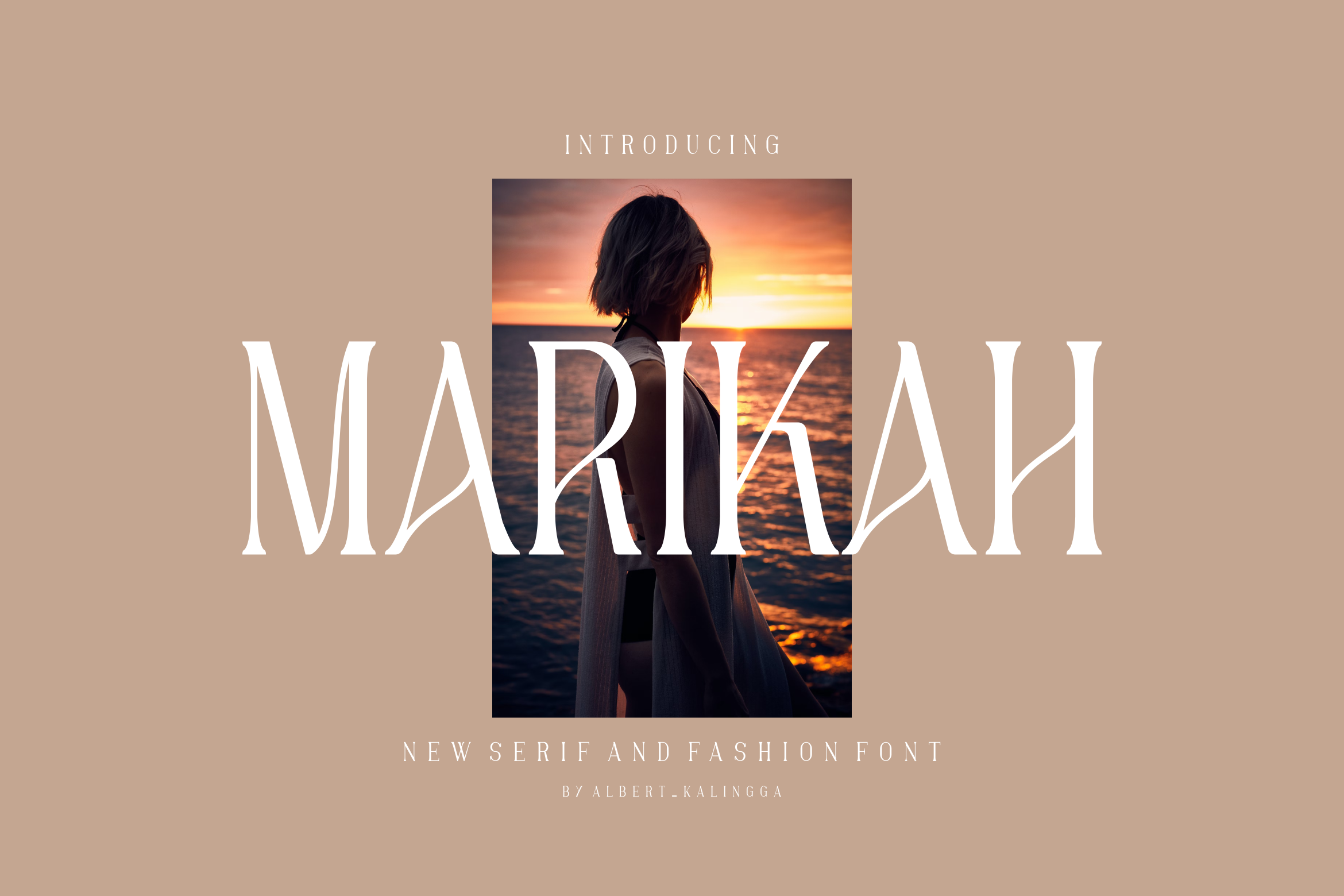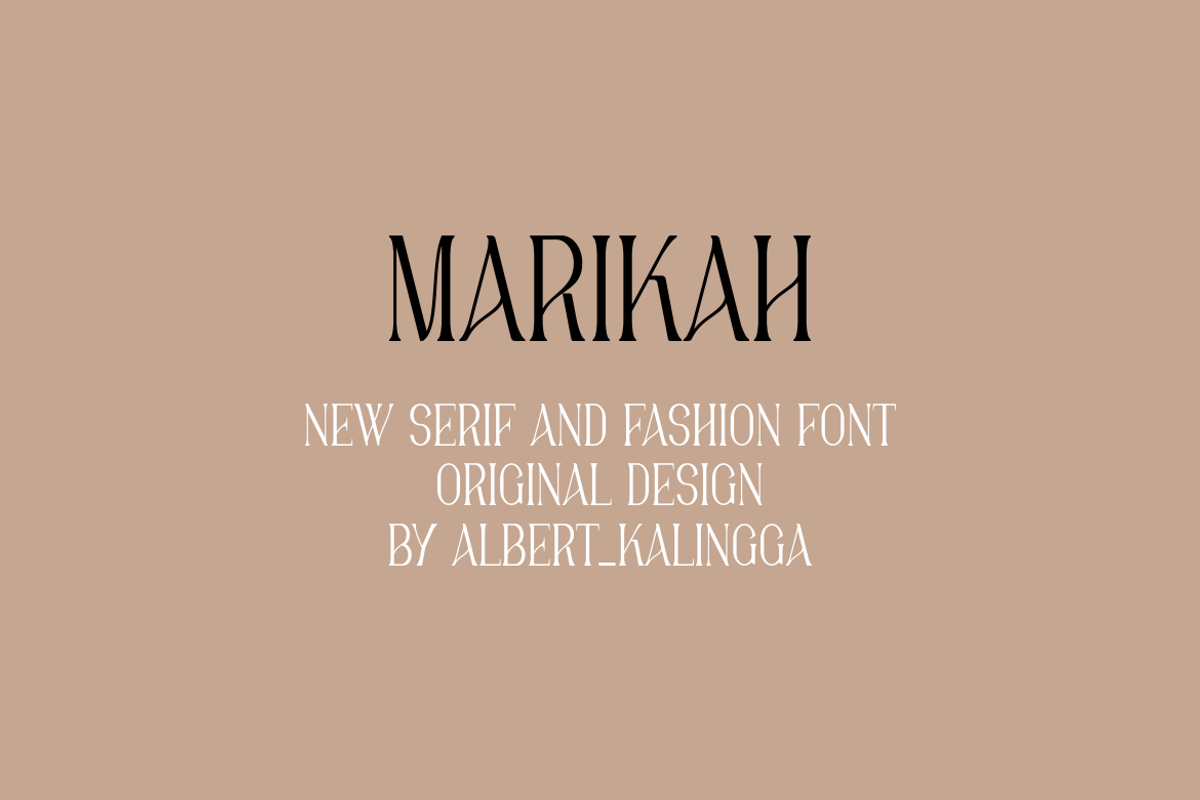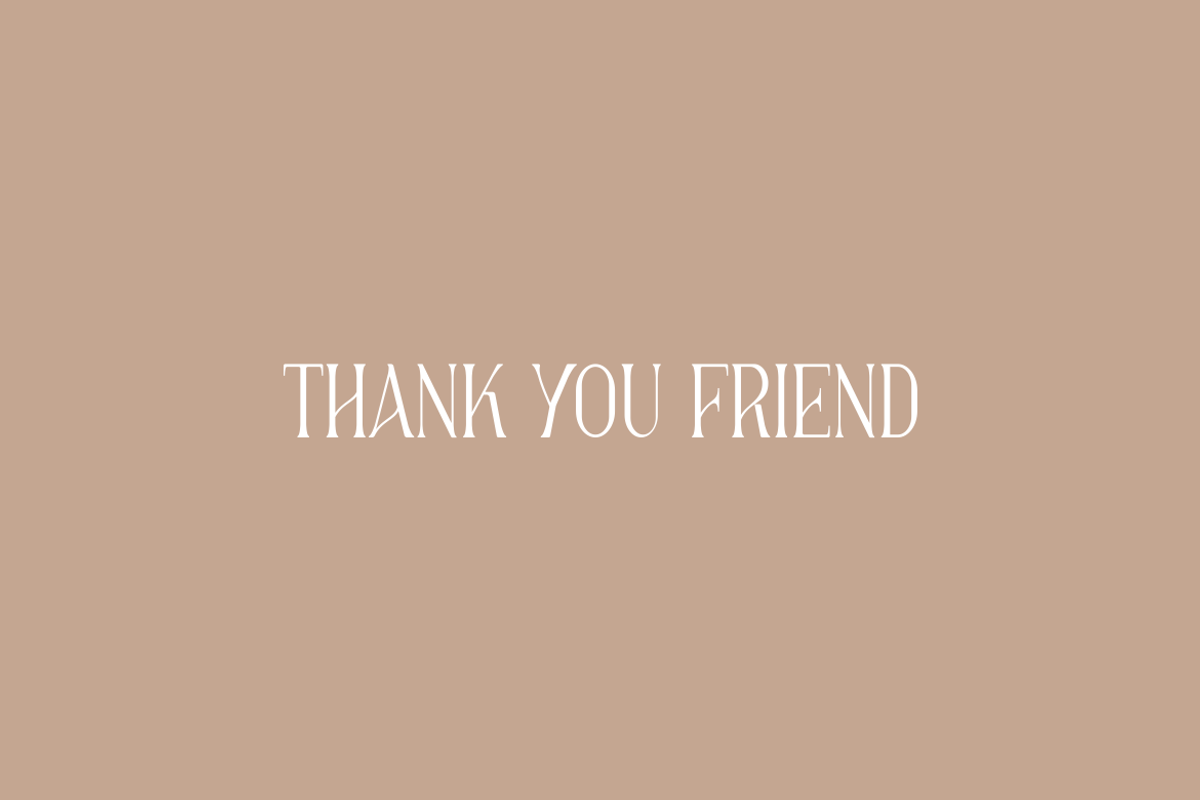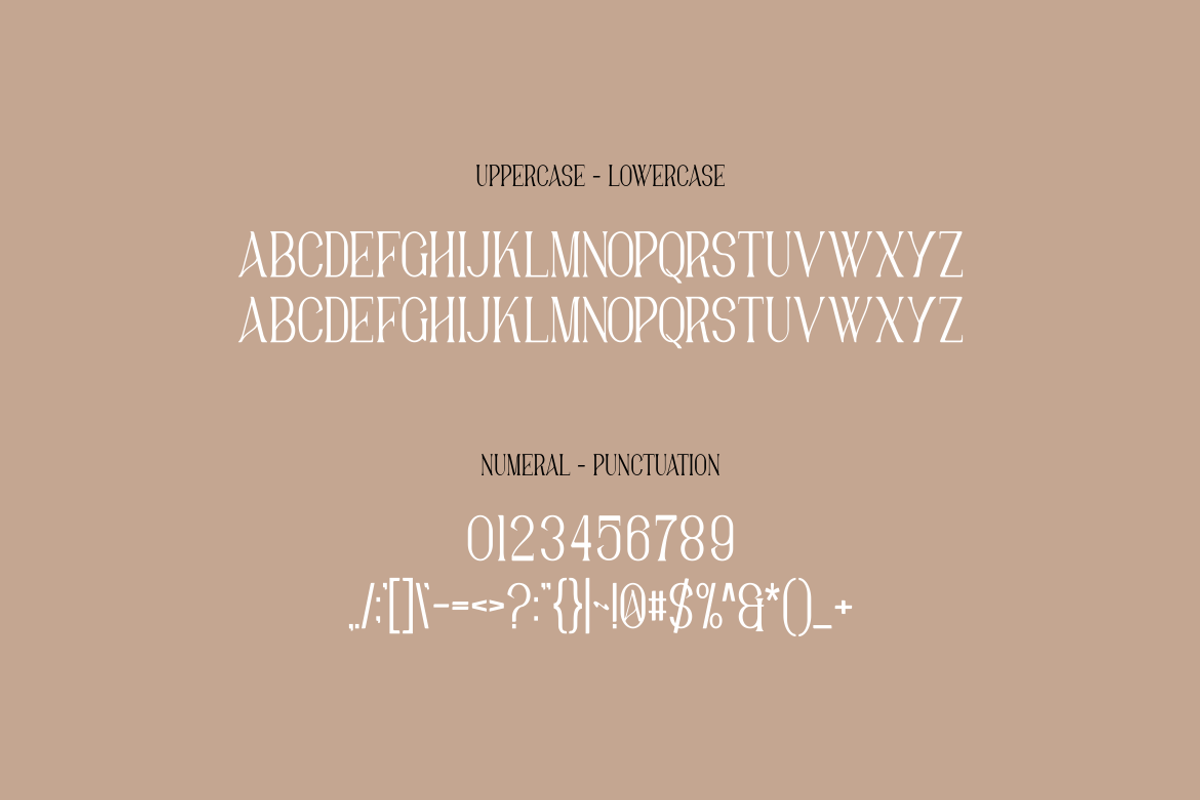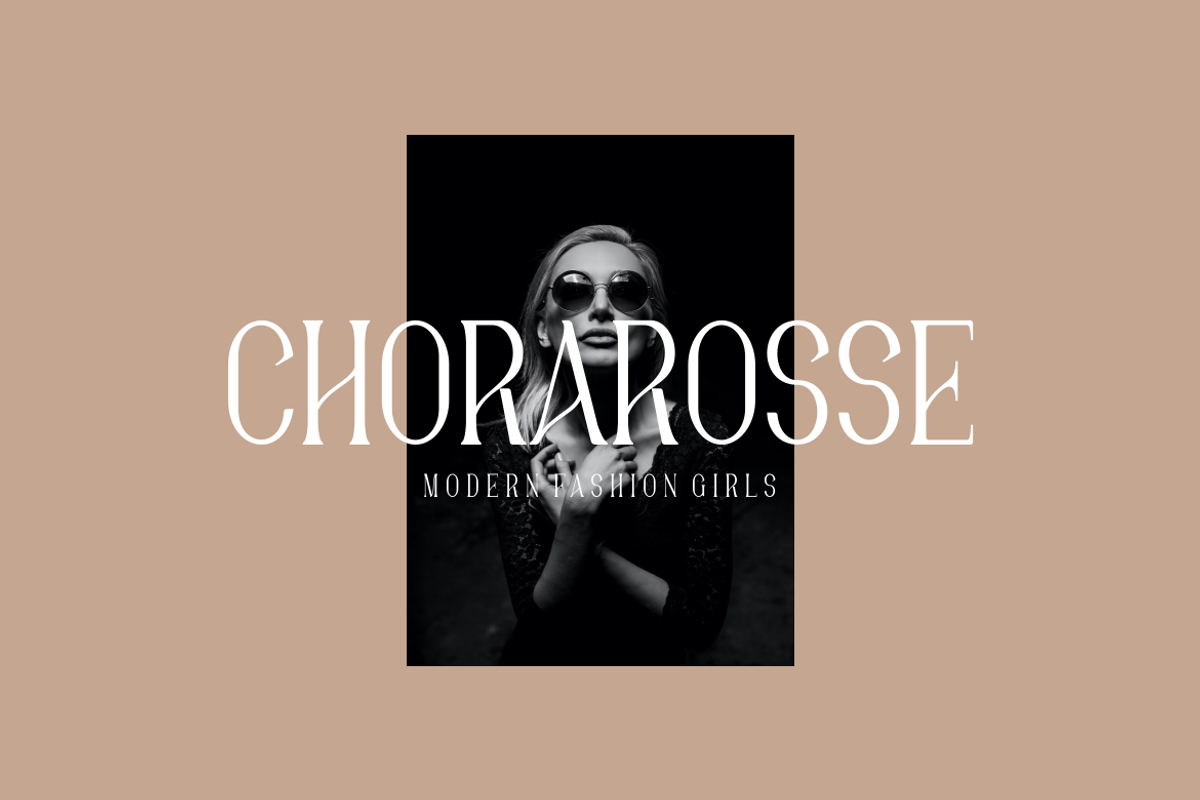
Marikah Font
Introducing our new product Marikah Font - Modern Font
Marikah Font - Modern Font is a bold and authentic display font. The font is suitable for any branding project like logo, esport, and many more. outstanding in a wide range of contexts.